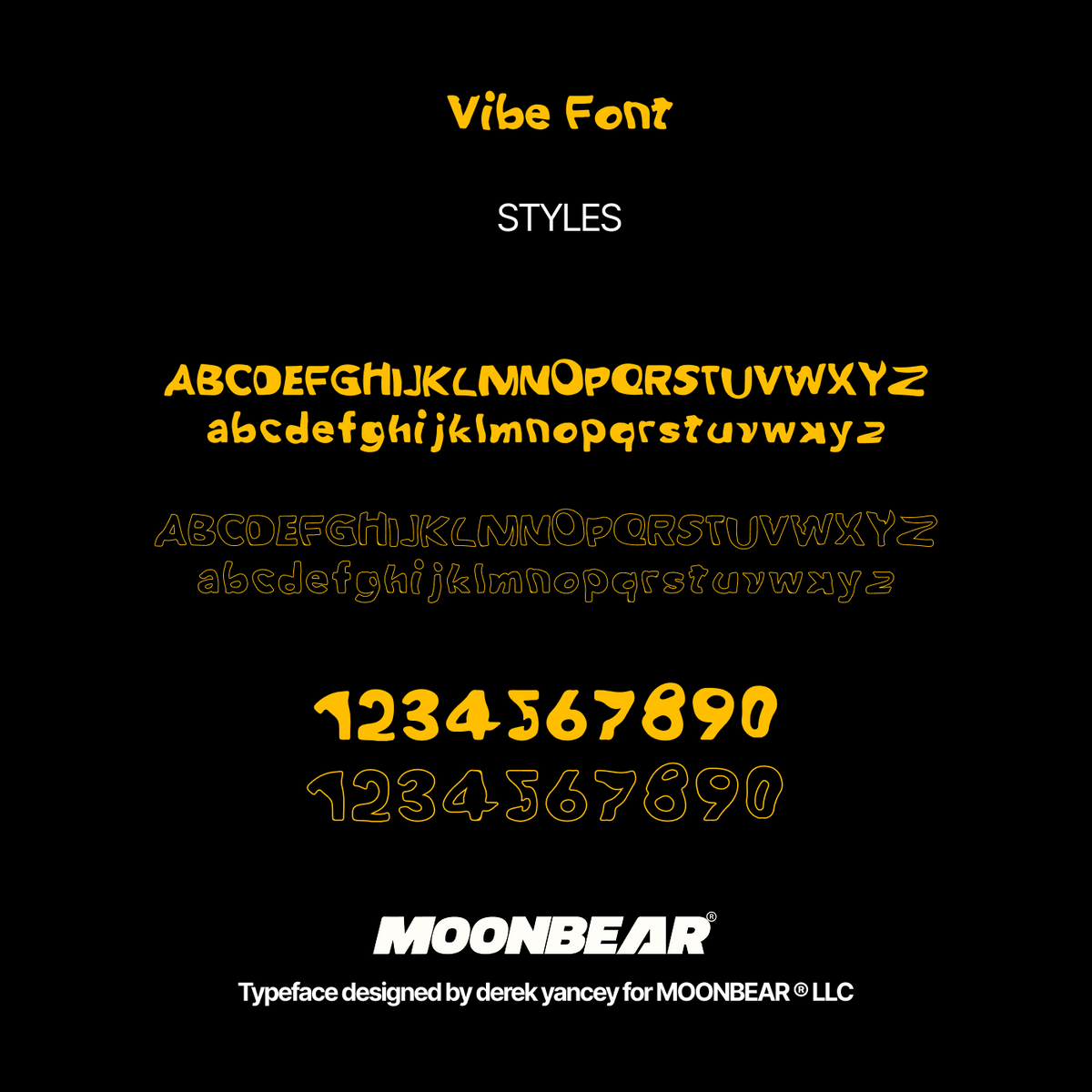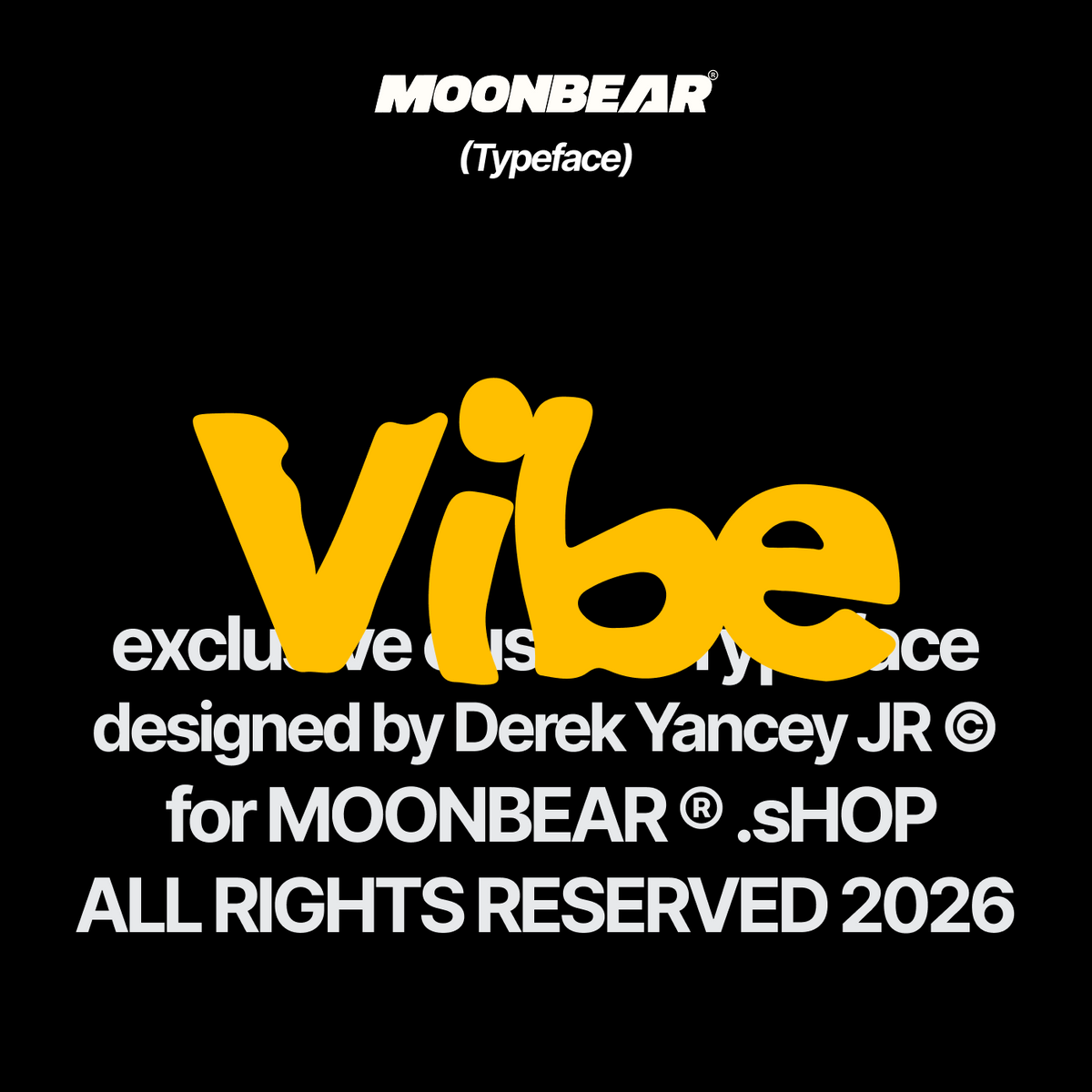
VIBE FONT by moonbear.shop displayed in a digital style, featuring bold, modern lettering on a dark background.
VIBE FONT
Make your designs pop with VIBE FONT – the sans serif font that'll add major funk to any poster, flyer, or design! As seen on the hottest aesthetic vibes on the 'gram, VIBE FONT is an absolute must for any designer looking to stand out from the crowd. Make a major statement without the major drama!